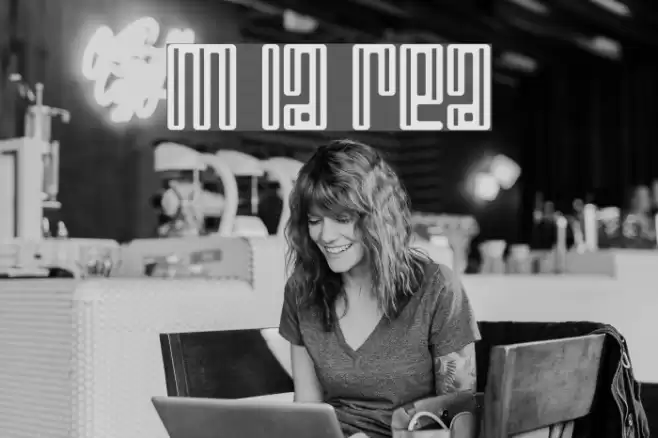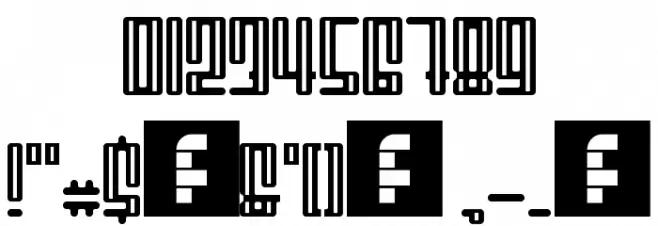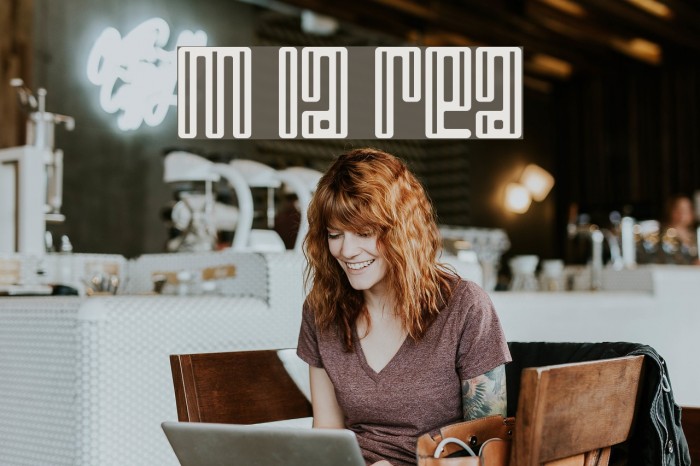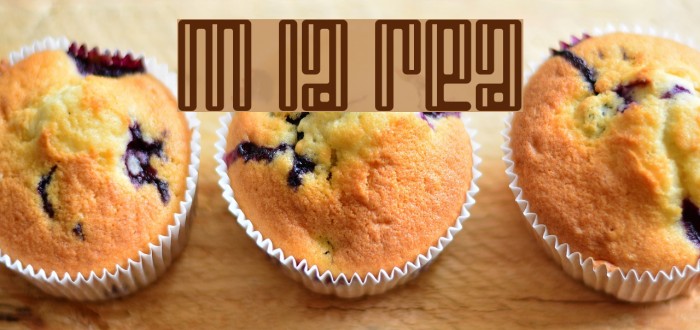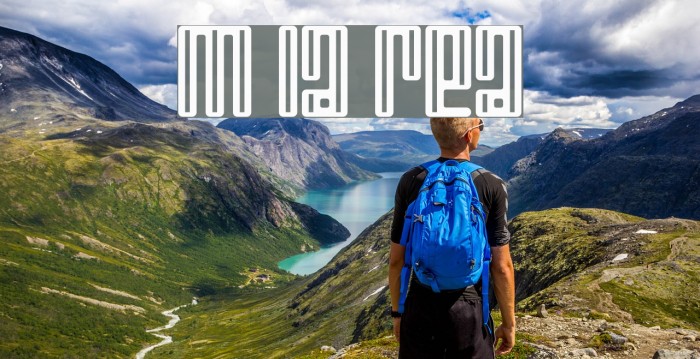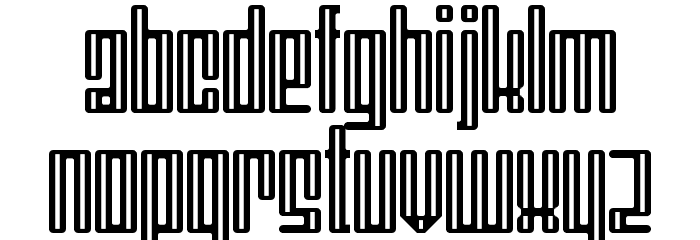
Mojo Inlay Regular Font
Mojo Inlay Regular Description
This font features a unique, geometric design with a distinct inlay pattern. Each character is constructed with bold, parallel lines that create a striking visual effect. The uppercase and lowercase letters maintain a consistent height, contributing to a uniform appearance. The numbers and special characters follow the same design principles, ensuring cohesion across all glyphs. The font's style is reminiscent of digital or technological themes, making it suitable for modern and futuristic projects. Its bold and structured form demands attention, making it ideal for display purposes.
A geometric, inlay-patterned font with bold, parallel lines for a modern look from Uncategorized fonts.
- Proposed Projects: Ideal for technology-themed designs, digital art, branding, and modern posters.